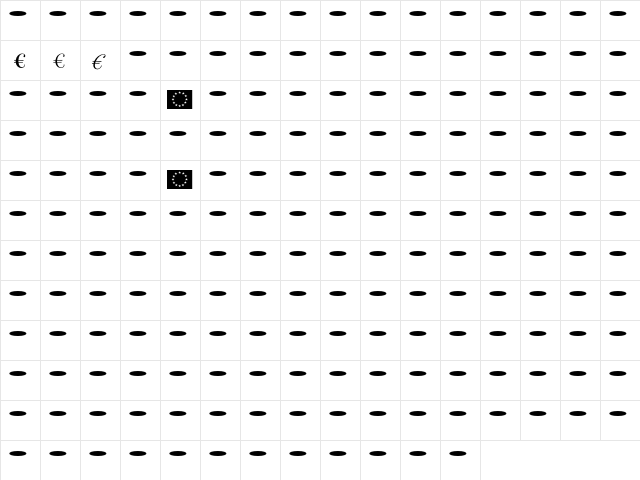
Fontesque-Euro Regular
Design Context for Fontesque-Euro Typeface
Fontesque-Euro offers clean, dependable letterforms without strong stylistic allegiance, making it a practical choice for designers who need flexibility.